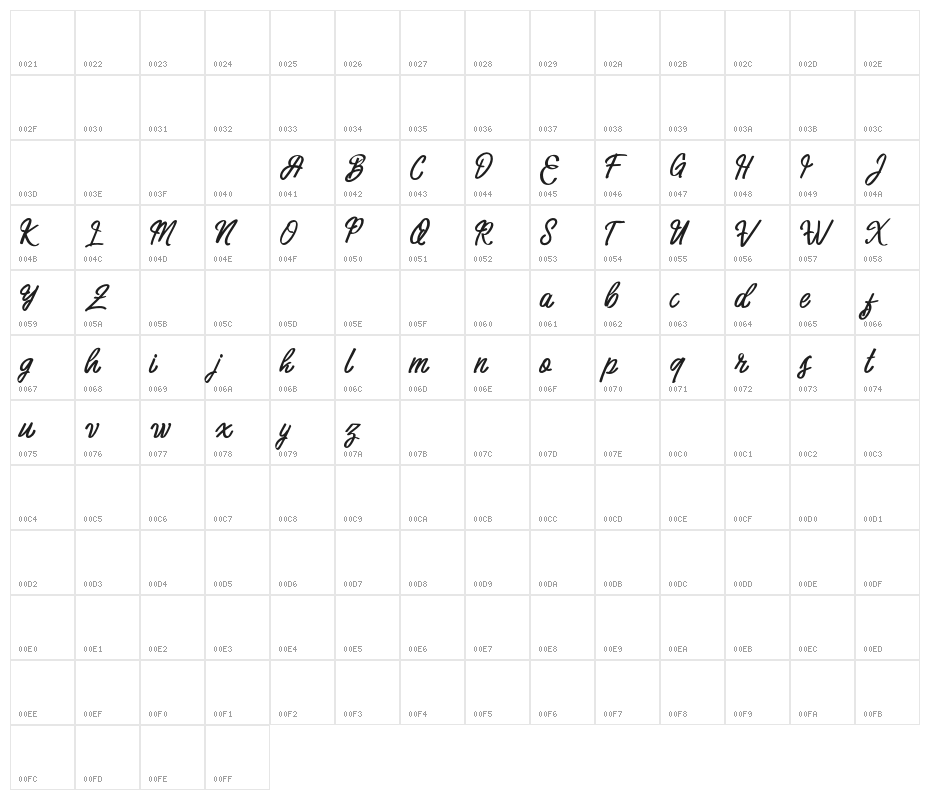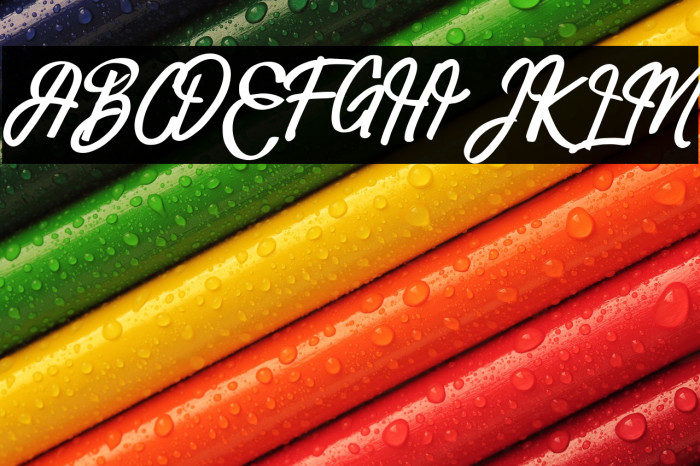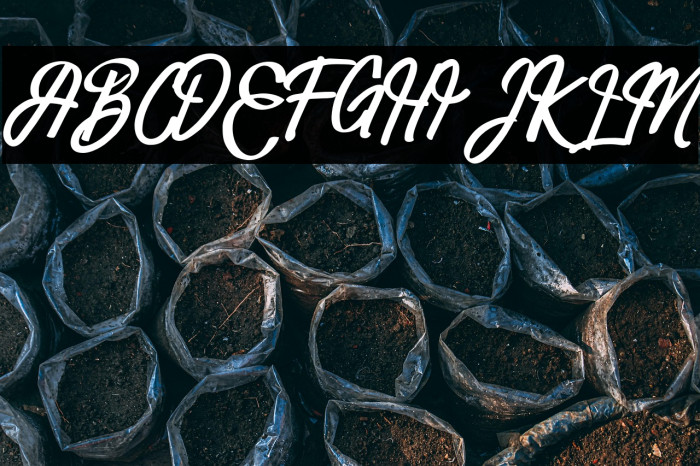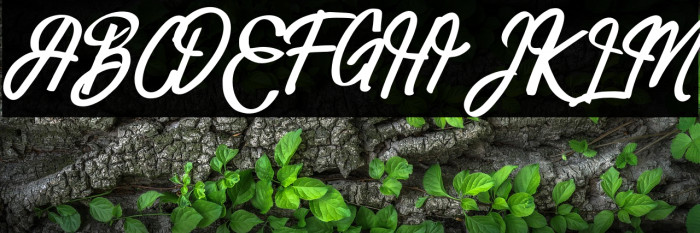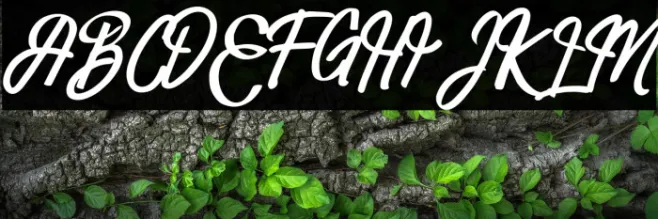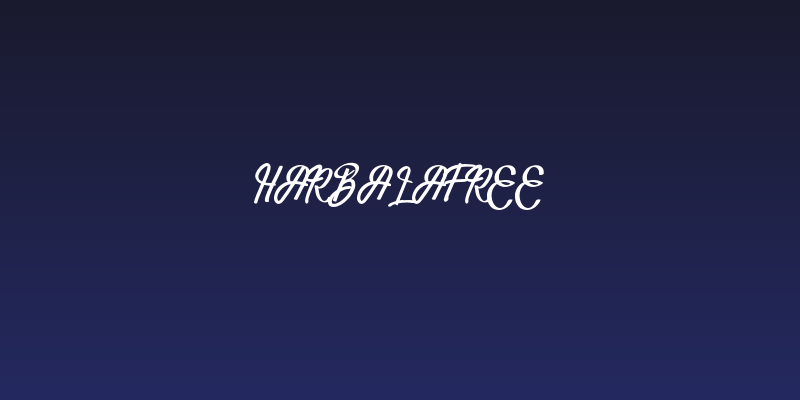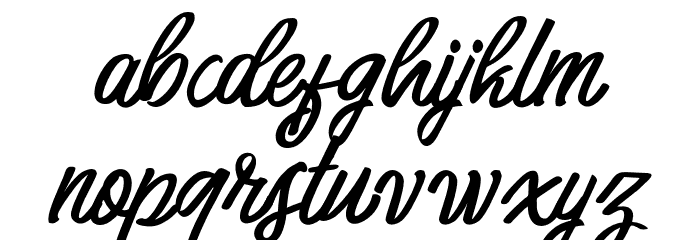
HarbalaFREE Font
HarbalaFREE Description
This font features a dynamic and flowing script style, characterized by its elegant and fluid letterforms. The characters are connected, creating a seamless and continuous flow that mimics natural handwriting. The strokes are bold and confident, with a slight slant that adds to the overall sense of movement and grace. The uppercase letters are distinguished by their elaborate loops and swirls, while the lowercase letters maintain a more restrained yet equally expressive form. This font exudes a sense of sophistication and creativity, making it suitable for projects that require a personal and artistic touch.
Use CaseLogos, Invitations, Decorative text
Proposed ProjectsIdeal for wedding invitations, greeting cards, branding, and logo design.